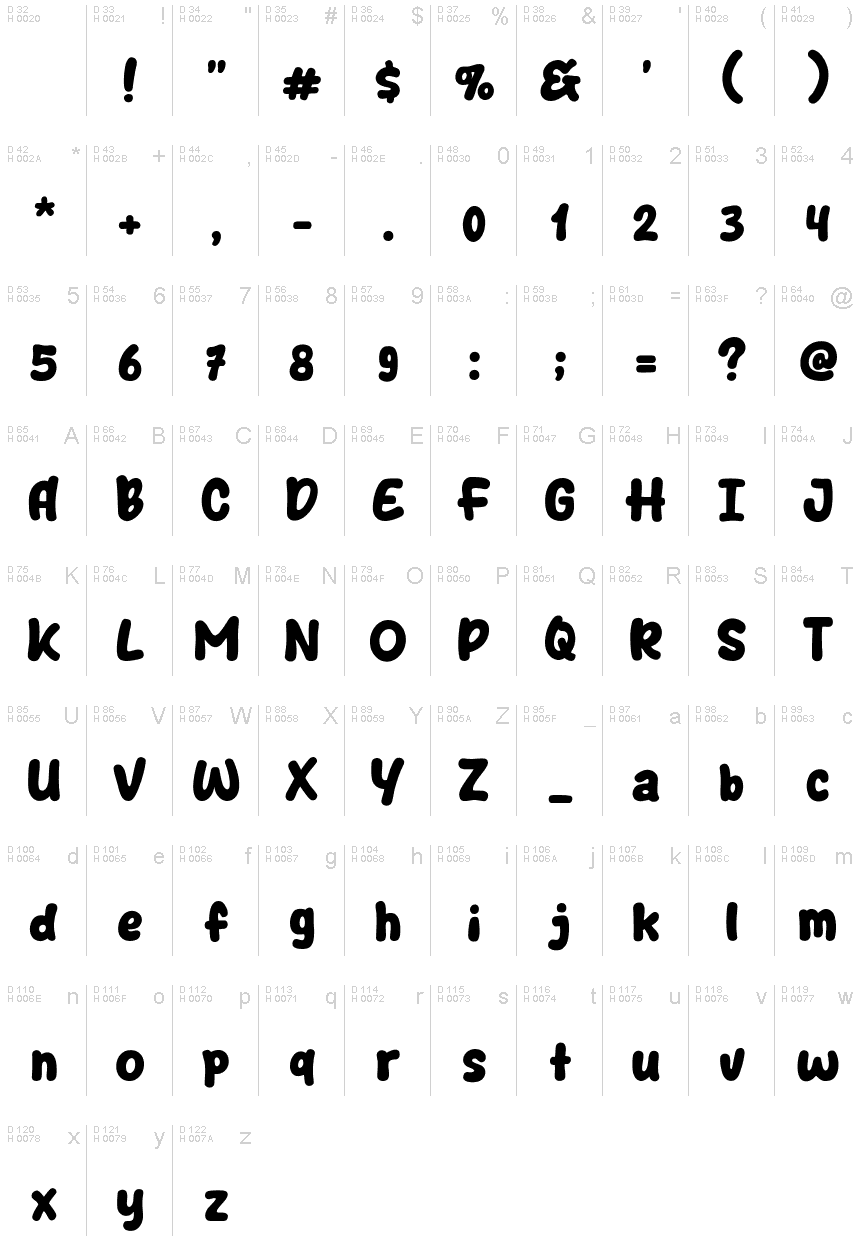
Tealand
Tealand, designed by Khurasan, is a modern and cute display font that brings a touch of whimsy to any project.
With its bold weight and cartoon style, this font is ideal for creating eye-catching designs that demand attention. Whether you're designing posters, logos, magazines, book covers, or banners, Tealand will add a playful charm to your work. Its versatility allows it to be used in a wide range of creative projects, making it perfect for both personal and professional use.